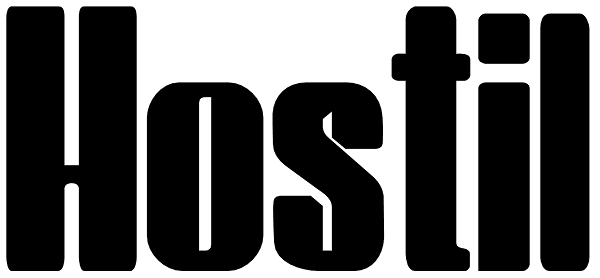
Hostil
Hostil is a modern typeface ready to fight for you. In any territory. Hostil has complete sets in Latin, Hebrew, Cyrillic, and Greek chracters. Plus Central European, Vietnamese, Baltic, Turkish complete sets with all diacritic signs and punctuation...